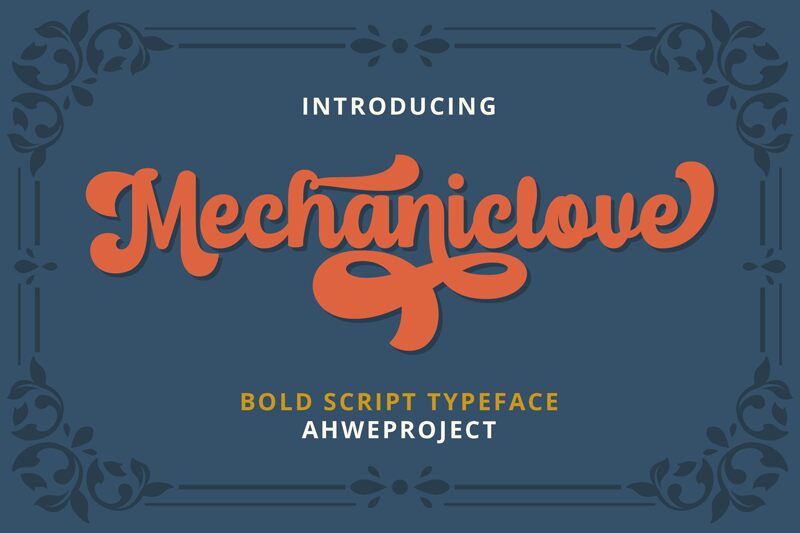
Mechaniclove, the brainchild of Ahwe Project, is a bold and captivating old-school smooth brush font that adds a touch of nostalgia to any project.
Its strong and confident strokes make it perfect for vintage-inspired designs, such as retro logos, album covers, or signage. This typeface's unique charm also lends itself well to creating eye-catching posters or bold headlines in magazines and newspapers.
With Mechaniclove's timeless appeal and versatile nature, it can effortlessly breathe life into various projects that demand a touch of boldness and vintage elegance.